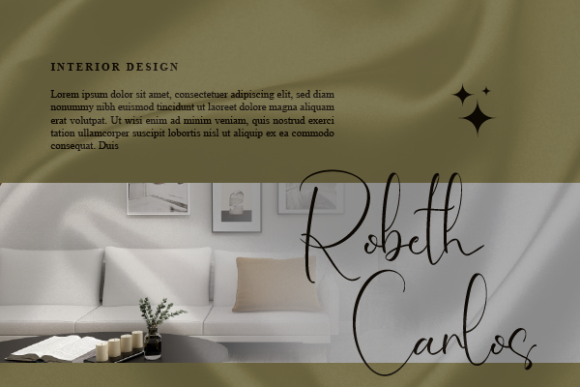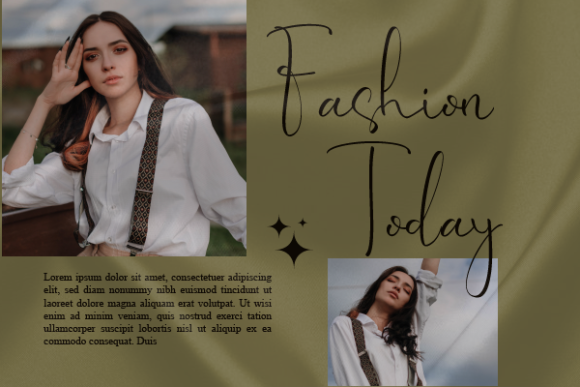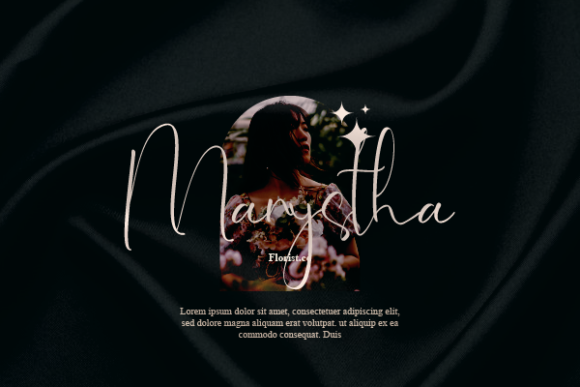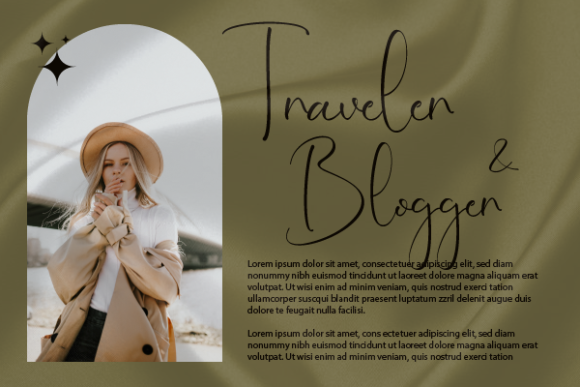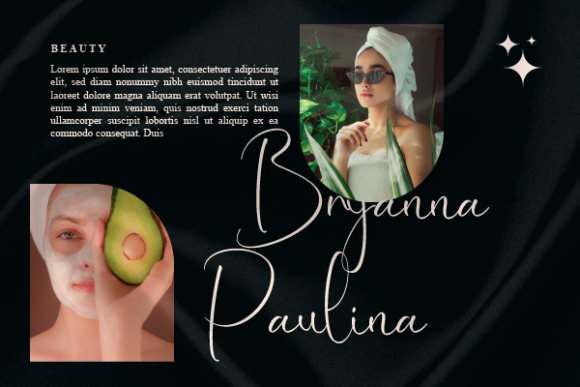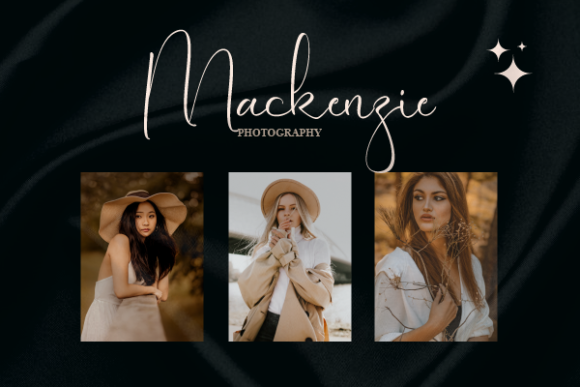
Introduction to Oakleigh Khalani Font
Oakleigh Khalani feels equally charming and elegant.
It looks stunning on wedding invitations, thank you cards, quotes, greeting cards, logos, business cards and every other design which needs a customized touch .
Key Features of Oakleigh Khalani Font